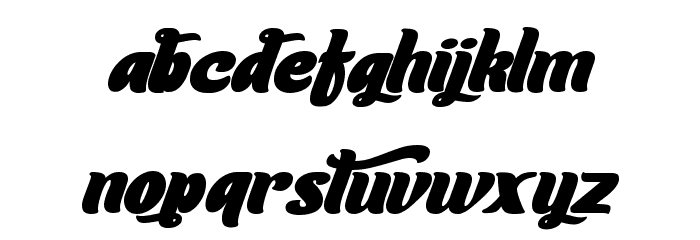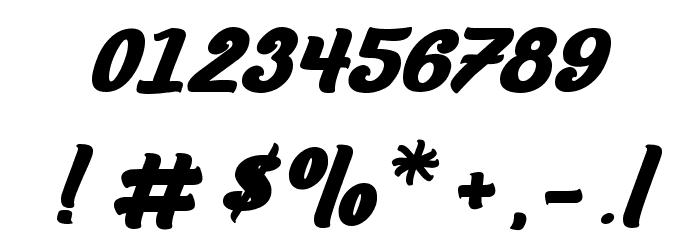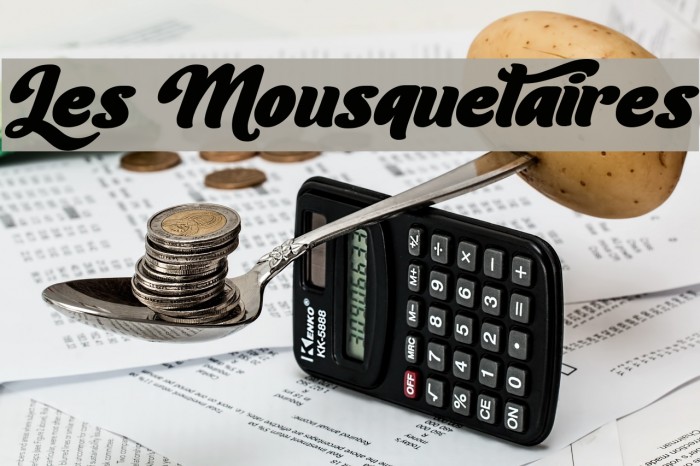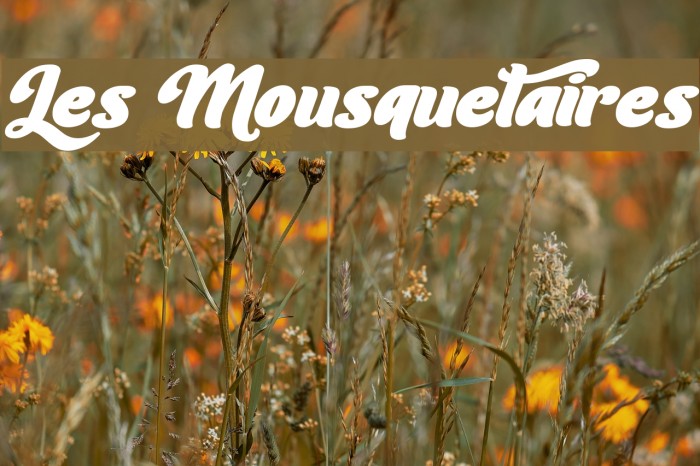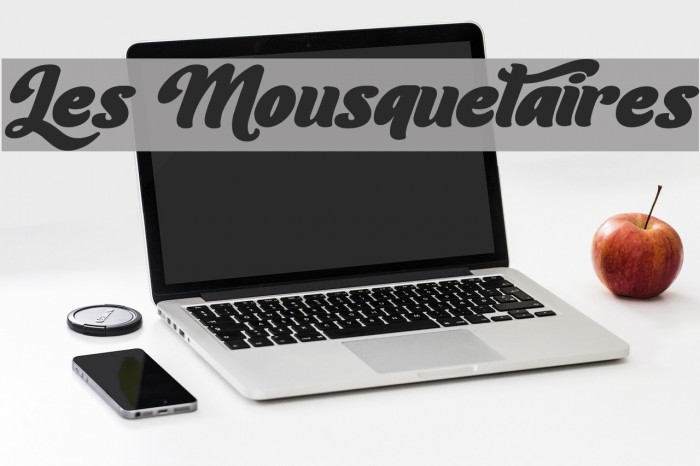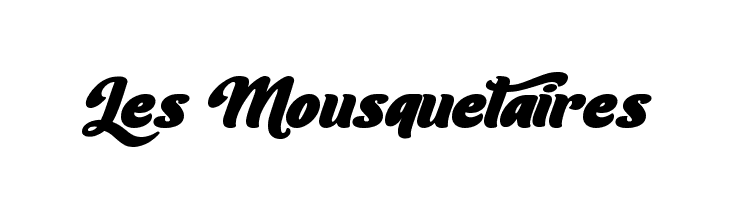
Les Mousquetaires Font
This font exudes a bold and dynamic presence with its thick, flowing strokes and cursive style. The uppercase letters are particularly striking, featuring dramatic flourishes and a sense of movement that suggests elegance and flair. The lowercase letters maintain this fluidity, offering a harmonious balance between readability and artistic expression. Numbers and special characters are equally bold, ensuring consistency across all uses. The overall design is reminiscent of classic calligraphy, yet it maintains a modern edge that makes it suitable for contemporary applications.
A bold, cursive font with dramatic flourishes and a modern calligraphic style.
- Proposed Projects: Ideal for branding, logo design, invitations, and any project requiring a touch of elegance and sophistication.
- Use Case: Logos, Invitations, Branding